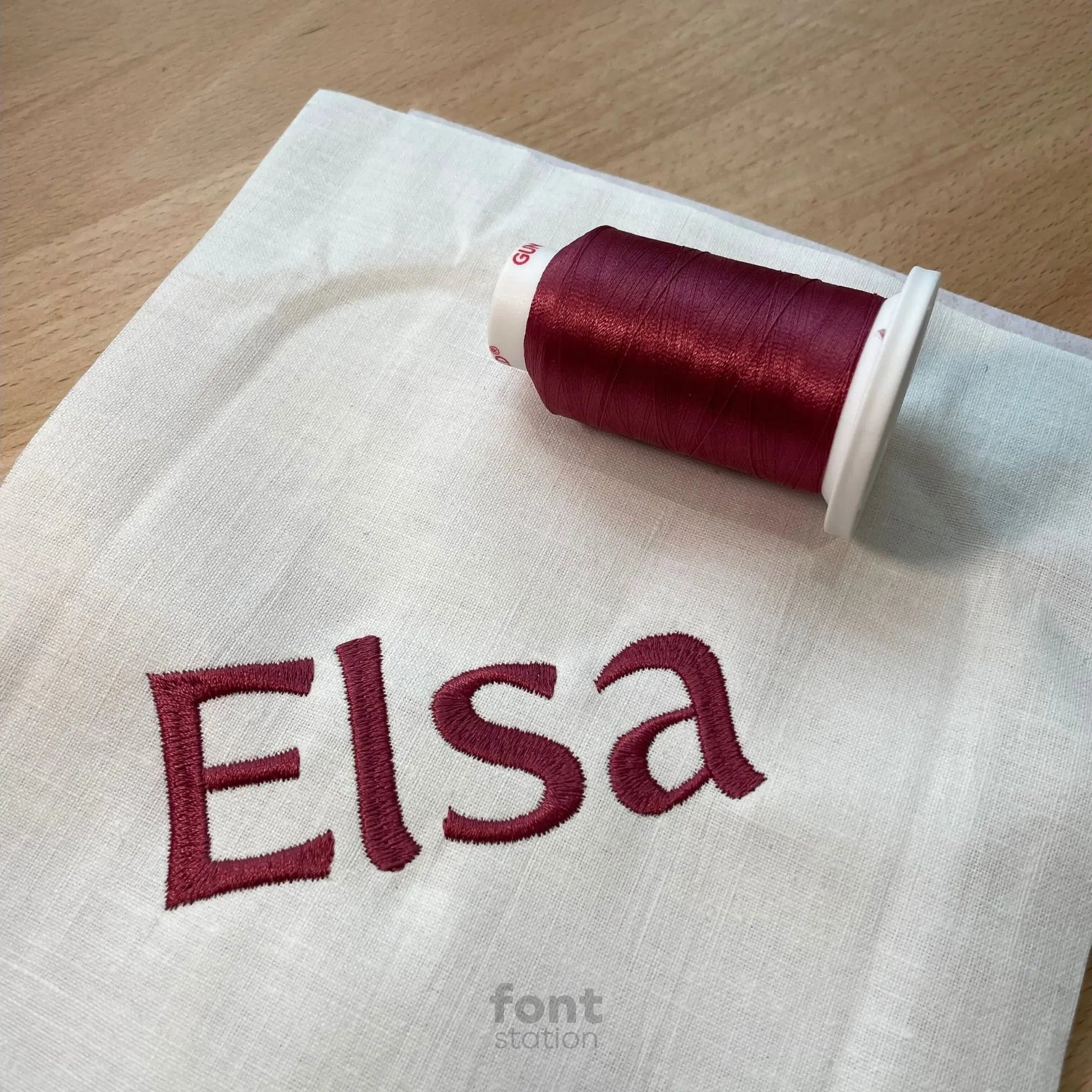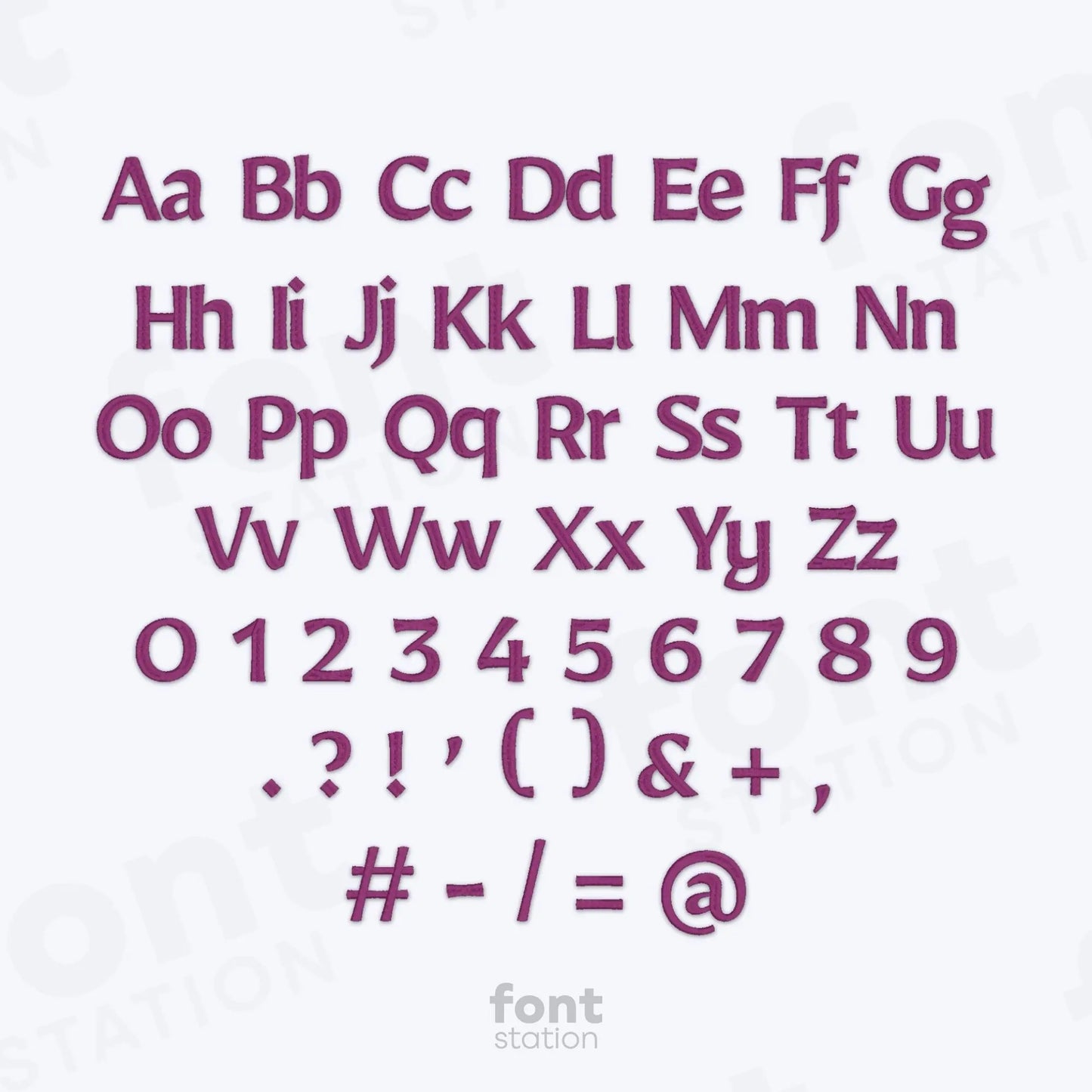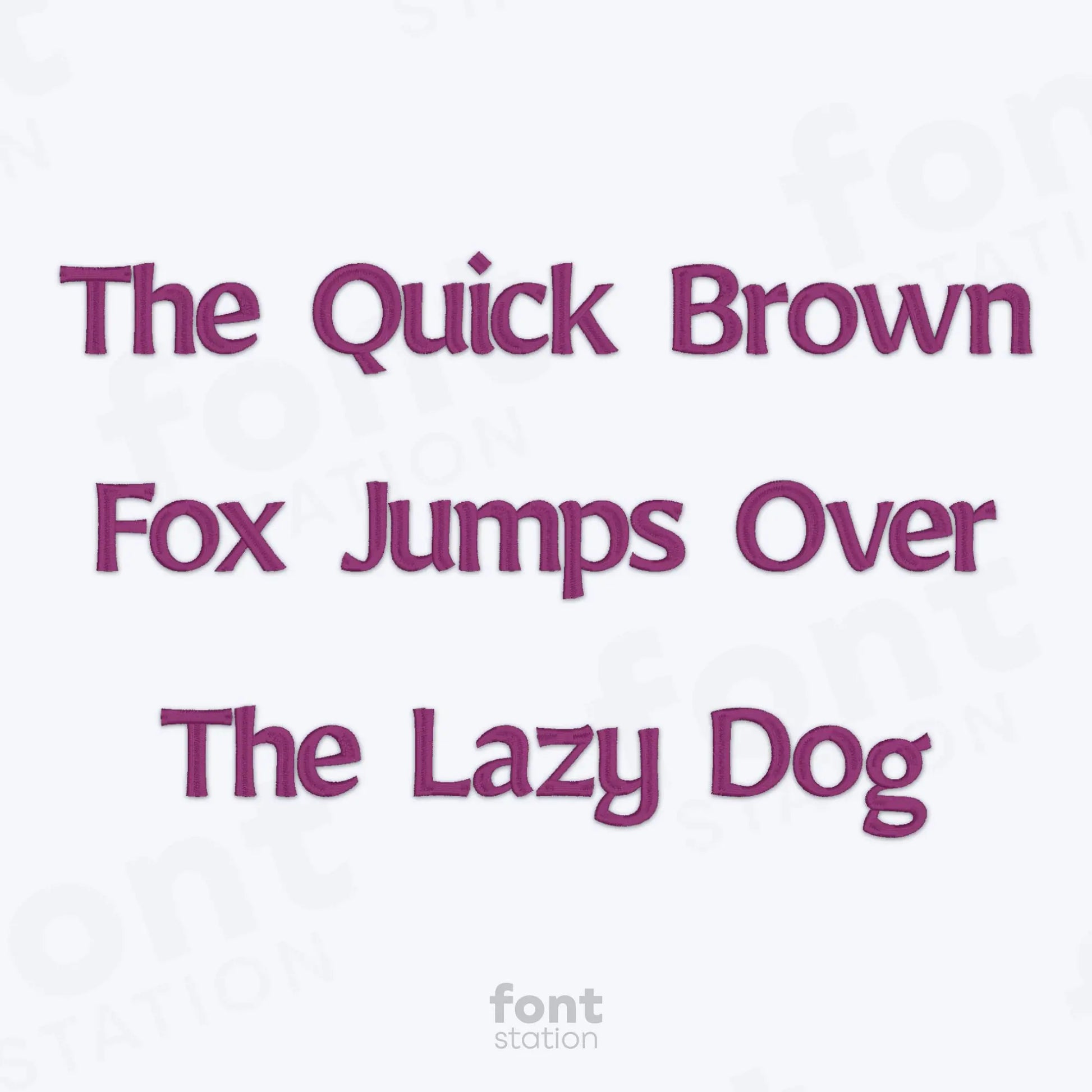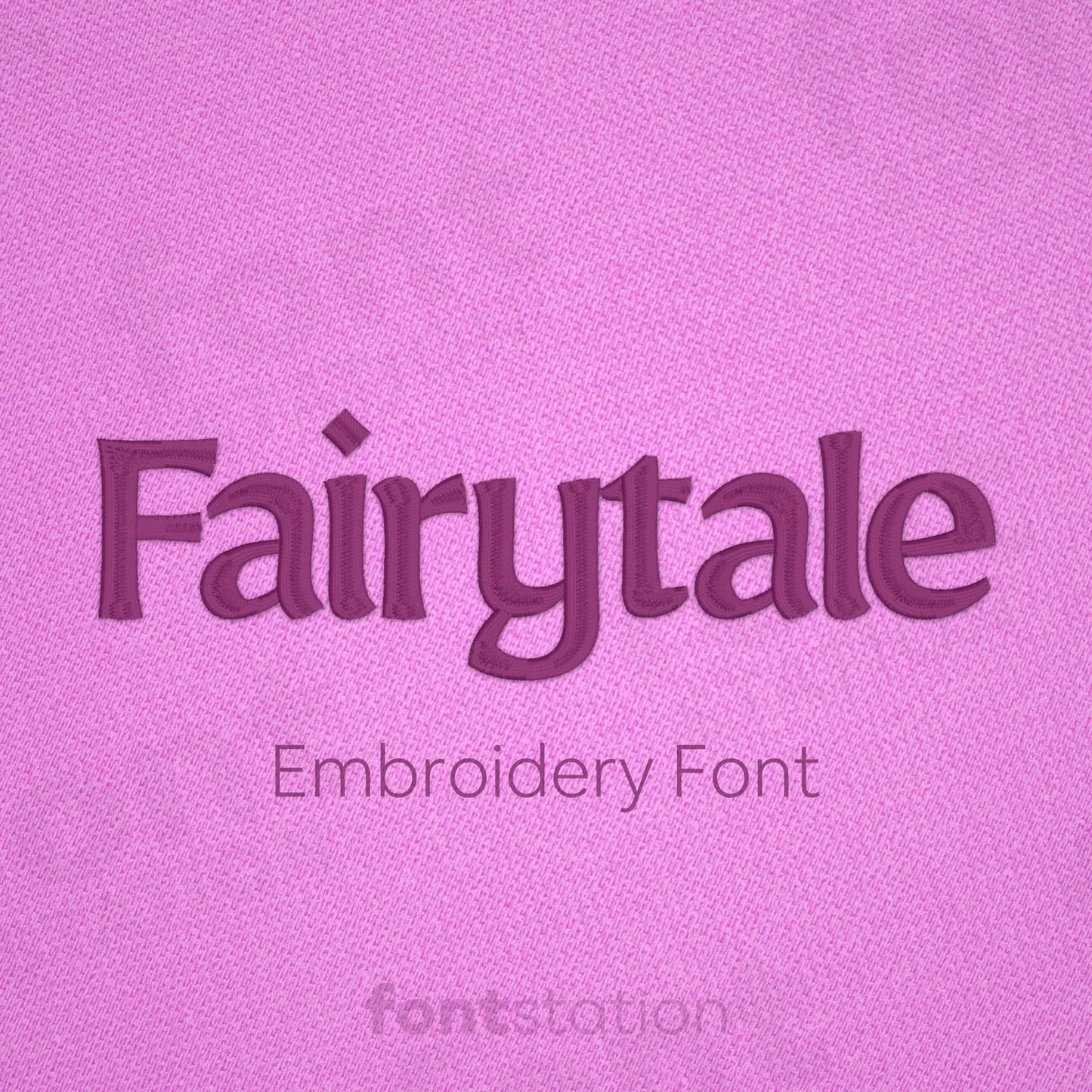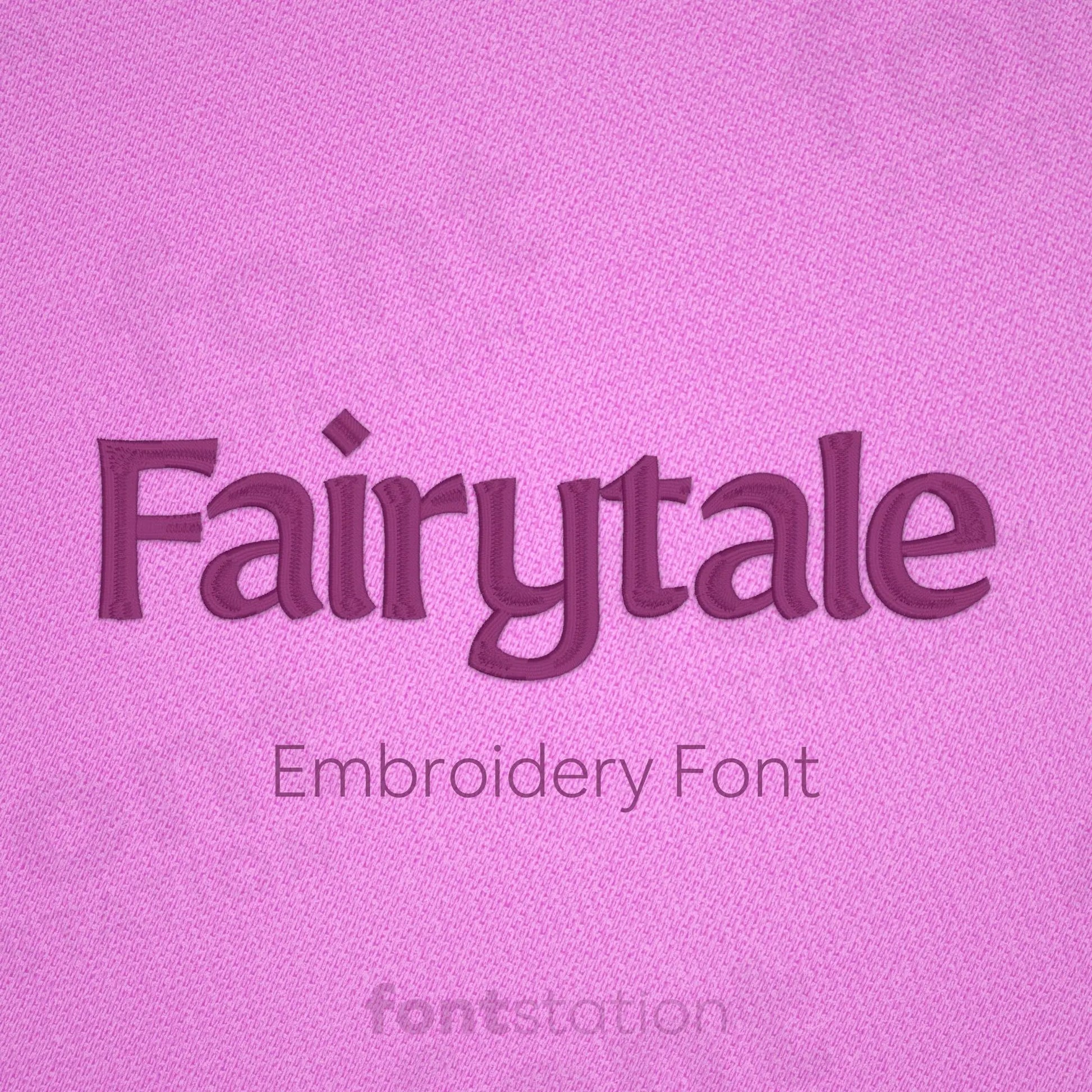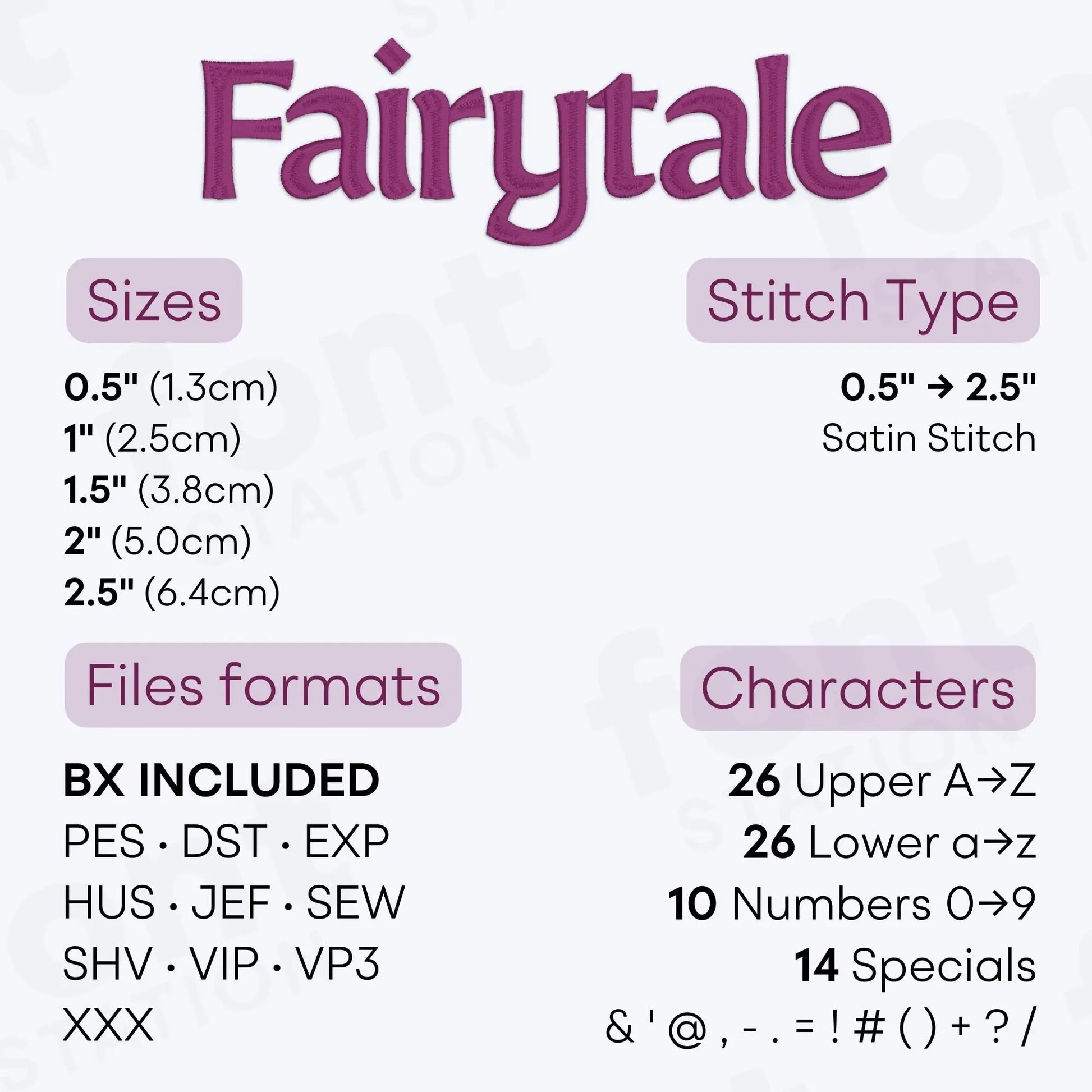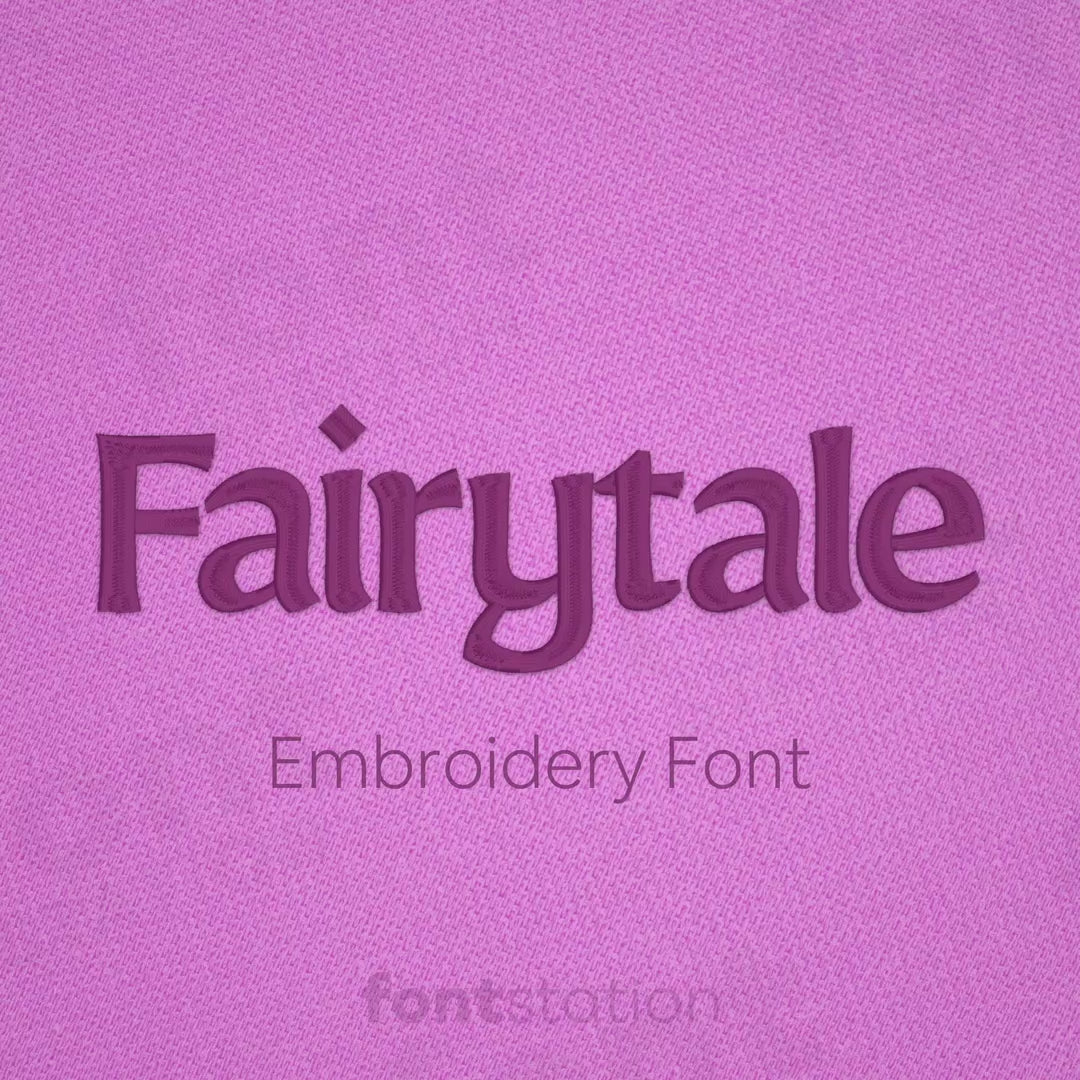
Fairytale Embroidery Font
Introducing our Fairytale embroidery font, a whimsical alphabet perfect to stitch enchanted letters onto your next magical project. Made for your embroidery machine, this dreamy font adds charm and fantasy to your designs with every stitch.
About the Fairytale Embroidery Font
The Fairytale embroidery font brings a whimsical, enchanted touch to your embroidery projects.
Our Fairytale embroidery font features a playful, storybook-style alphabet perfect for princess-themed gifts, magical names, and dreamy nursery decor. With charming curves and fairy-inspired details, these embroidery letters are digitized for smooth stitching on any embroidery machine. Available in formats like BX, PES, DST, JEF, EXP, VP3, HUS and more, this whimsical embroidery font is ideal for creating enchanting designs with ease.